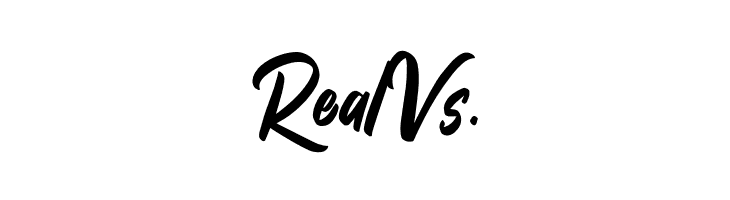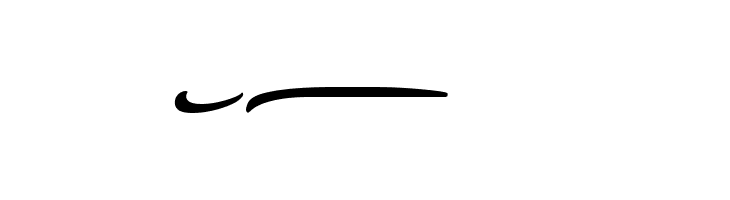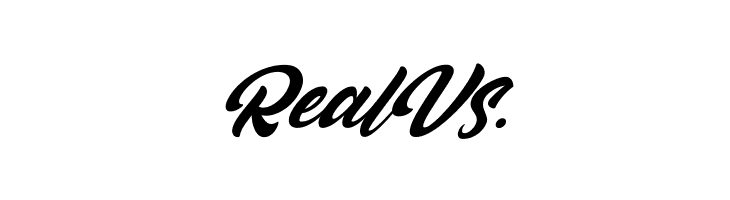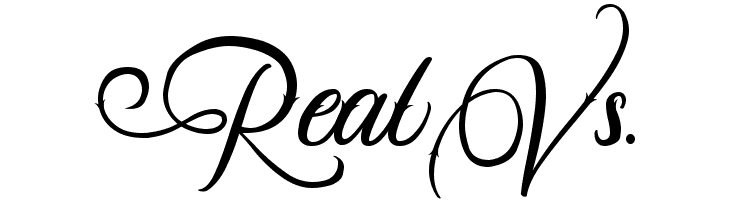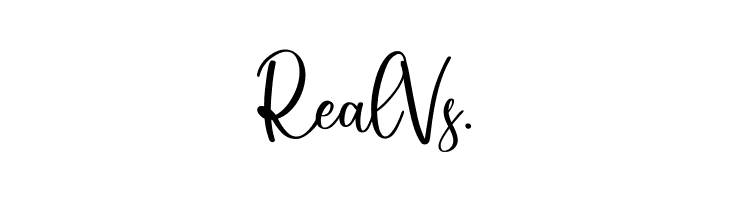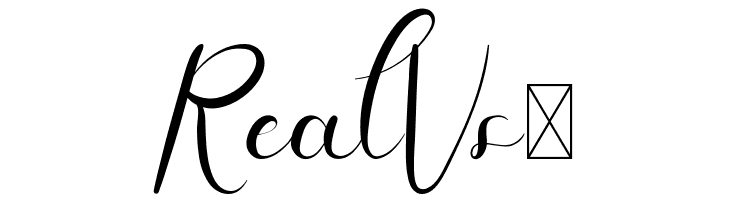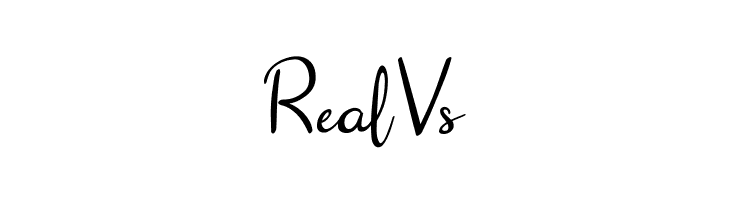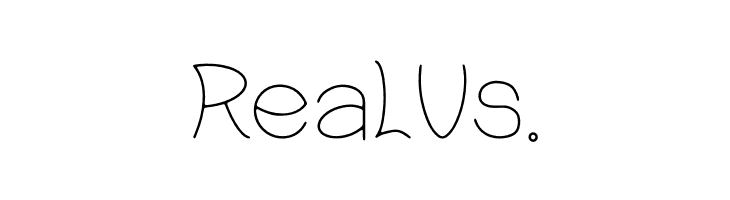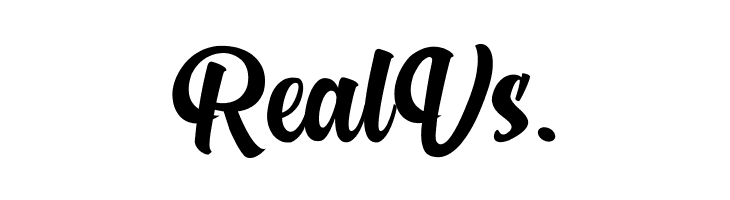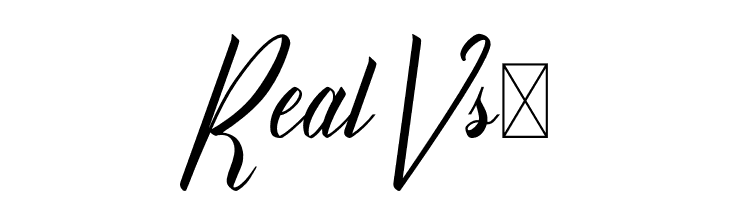
A bold, flowing script font with dynamic curves and expressive style.
A whimsical, hand-drawn font with flowing lines and a playful style.
A lively handwritten font with dynamic strokes and playful character.
A bold, handwritten font with a casual and playful style.
A bold, angular font with a geometric, modern blackletter style.
A playful, casual handwritten font with smooth curves and uniform strokes.
A bold, classic serif typeface with strong vertical strokes and pronounced serifs.
A flowing, cursive font with elegant loops and a handwritten style.
A decorative script font with elegant swirls and loops.
A casual, handwritten cursive font with smooth, flowing lines.
A playful, handwritten font with tall, slender letters and a whimsical charm.
A playful handwritten font with a casual and friendly style.
An elegant, flowing script font with high contrast and interconnected letters.
A bold, decorative font with a playful yet strong style.
A flowing, cursive script with elegant, connected letters.
A playful, hand-drawn font with bold, irregular strokes and a whimsical style.
A bold, italic script font with flowing, connected characters.
An elegant, calligraphic font with flowing swashes and decorative flair.
A bold, dynamic script font with fluid, connected letters.
A bold, decorative font with intricate curves and sharp edges.
A casual, handwritten font with a smooth, flowing style.
A bold, geometric stencil font with enclosed characters and a modern industrial feel.
A bold, hand-drawn font with a playful and adventurous spirit.
Elegant script font with flowing, cursive strokes and a sophisticated style.
A bold, jagged font with a futuristic, distressed style.
A decorative serif font with a medieval touch and modern elegance.
A bold, distressed font with a rugged, hand-drawn appearance.
A playful, elegant cursive font with a dynamic and handwritten style.
A bold, flowing script font with smooth, connected letters.